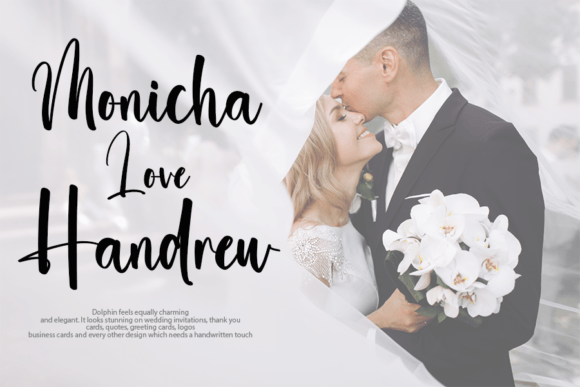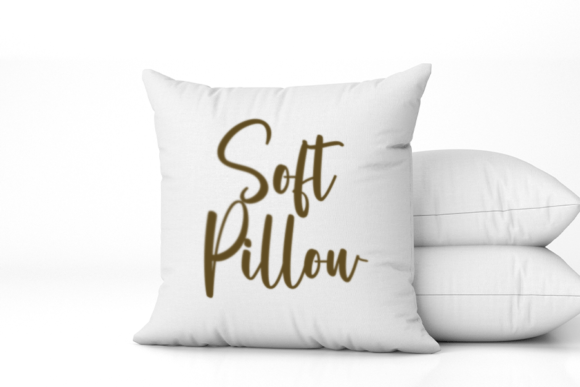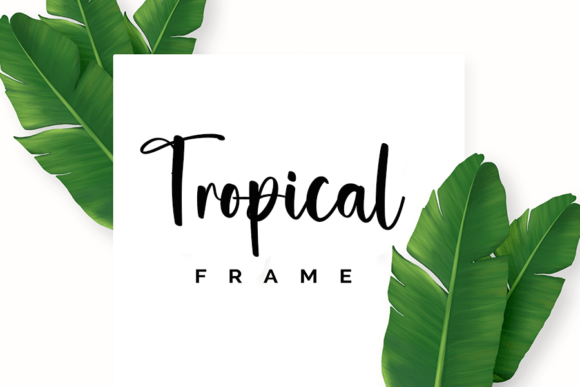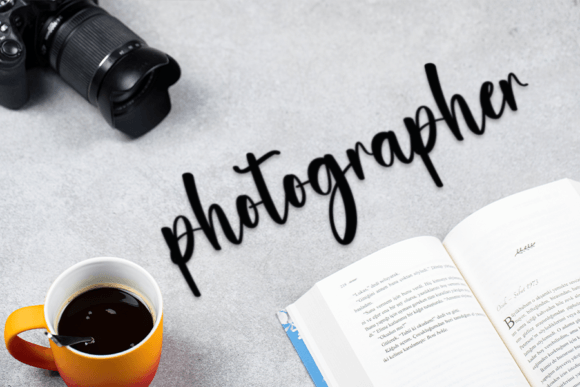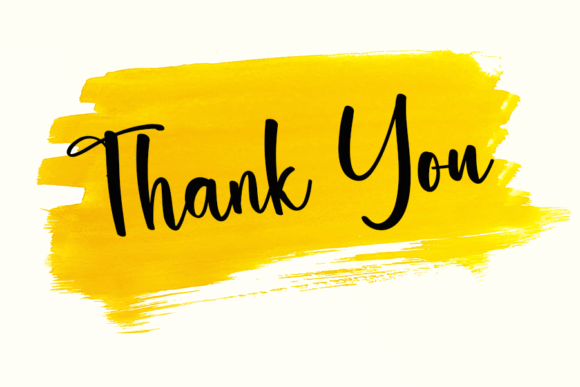
Introduction to Dolphin Font
Have you ever stared at a blank page, struggling to find the perfect font to bring your creative project to life? We’ve all been there, right? As designers, we know how crucial it is to find that one special font that sets our work apart and adds a touch of magic. For those moments when you need a font that’s as elegant as it is unique, we’re excited to introduce you to the Dolphin Font.
This gorgeous handwritten font is more than just a pretty face – it’s a game-changer for designers looking to elevate their high-quality designs. With its curvy lines and sweet, handwritten touch, the Dolphin Font is perfect for product packaging, branding projects, magazine covers, social media posts, weddings, and anything else that needs a little extra love. And the best part? It’s available for free download, complete with a transparent background to make your designs shine.
- Designed with a unique, playful style, featuring a dolphin character that can add a touch of whimsy to any design.
Honest Review: Dolphin Font
I recently stumbled upon the Dolphin Font while searching for free design resources to enhance a creative project. As a designer, I’m always on the lookout for high-quality fonts that can elevate my work, and I was pleasantly surprised by this find.
- The font has a beautiful, playful feel to it, making it perfect for creative projects that need a bit of whimsy.
- The font may not be suitable for professional or formal applications, as it’s a bit too playful for those types of projects.
- The font family is relatively small, so it may not offer as many customization options as other fonts.
Overall, I’m impressed with the Dolphin Font and would recommend it to designers looking for a fun and creative font for their next project. It’s a solid addition to any design resource library, and the free download is a definite plus.
Tips for Getting the Most Out of Dolphin Font
To get the most out of the Dolphin Font, use it in a creative project that requires a high-quality, unique font. The font’s transparent background makes it ideal for designs that require a clean and minimalist look.
The Dolphin Font is commonly used in designs that require a playful and whimsical touch, such as:
- Children’s books and educational materials.
- Marketing materials for fun and quirky businesses.
- Personal projects that require a unique and creative touch.
Is the Dolphin Font suitable for high-resolution designs?
Yes, the Dolphin Font is designed to be high-quality and scalable, making it perfect for high-resolution designs. The font is available in various sizes and resolutions, and it can be easily scaled up or down without losing its clarity and detail. This makes it an ideal design resource for a wide range of creative projects, from business cards to billboards.